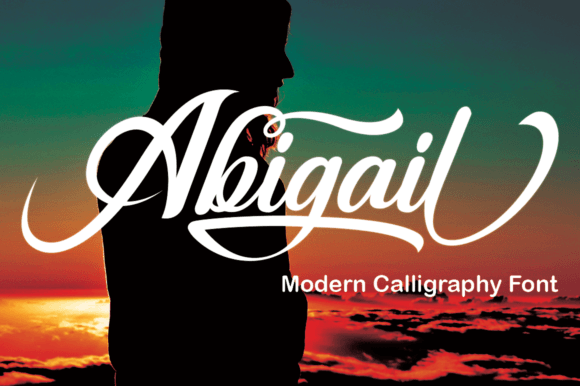
The Elegant Abigail Font: A Designer’s New Best Friend
I’ll never forget the time I was working on a wedding invitation project, and my client asked for a font that was both elegant and unique. I scoured the internet, trying out font after font, but nothing seemed quite right. That was until I stumbled upon the Abigail font. Its beautiful, handwritten curves and timeless style instantly won me over, and I knew I had found the perfect fit for my project. In this article, I’ll share my love for the Abigail font, its features, and how to make the most of it in your designs.
An Honest Review of Abigail Font
• ✨ Elegant and sophisticated, perfect for high-end designs
• ✅ Beautifully crafted with attention to detail
• 💕 Unique and distinctive, stands out from more common fonts
• 📚 Highly versatile, suitable for a wide range of projects
While Abigail is an amazing font, there are a few things to keep in mind:
• 🤔 May not be the best fit for very small text sizes, as some details may get lost
• ⚠️ Limited availability of certain characters or glyphs, depending on the platform or software used
The Story Behind Abigail Font
Abigail was designed by a talented typographer who wanted to create a font that was both elegant and unique. Inspired by classic calligraphy and handwritten scripts, Abigail was crafted with attention to detail and a passion for beauty. The result is a font that is both timeless and versatile, perfect for a wide range of design projects.
Q: What type of projects is Abigail font best suited for?
A: Abigail is a versatile font that can be used for a wide range of projects, including wedding invitations, apparel designs, social media graphics, and more.
Q: Is Abigail font suitable for body text?
A: While Abigail is a beautiful font, it’s best suited for headlines, titles, and short paragraphs. For body text, you may want to choose a font that’s more readable and easier to read.